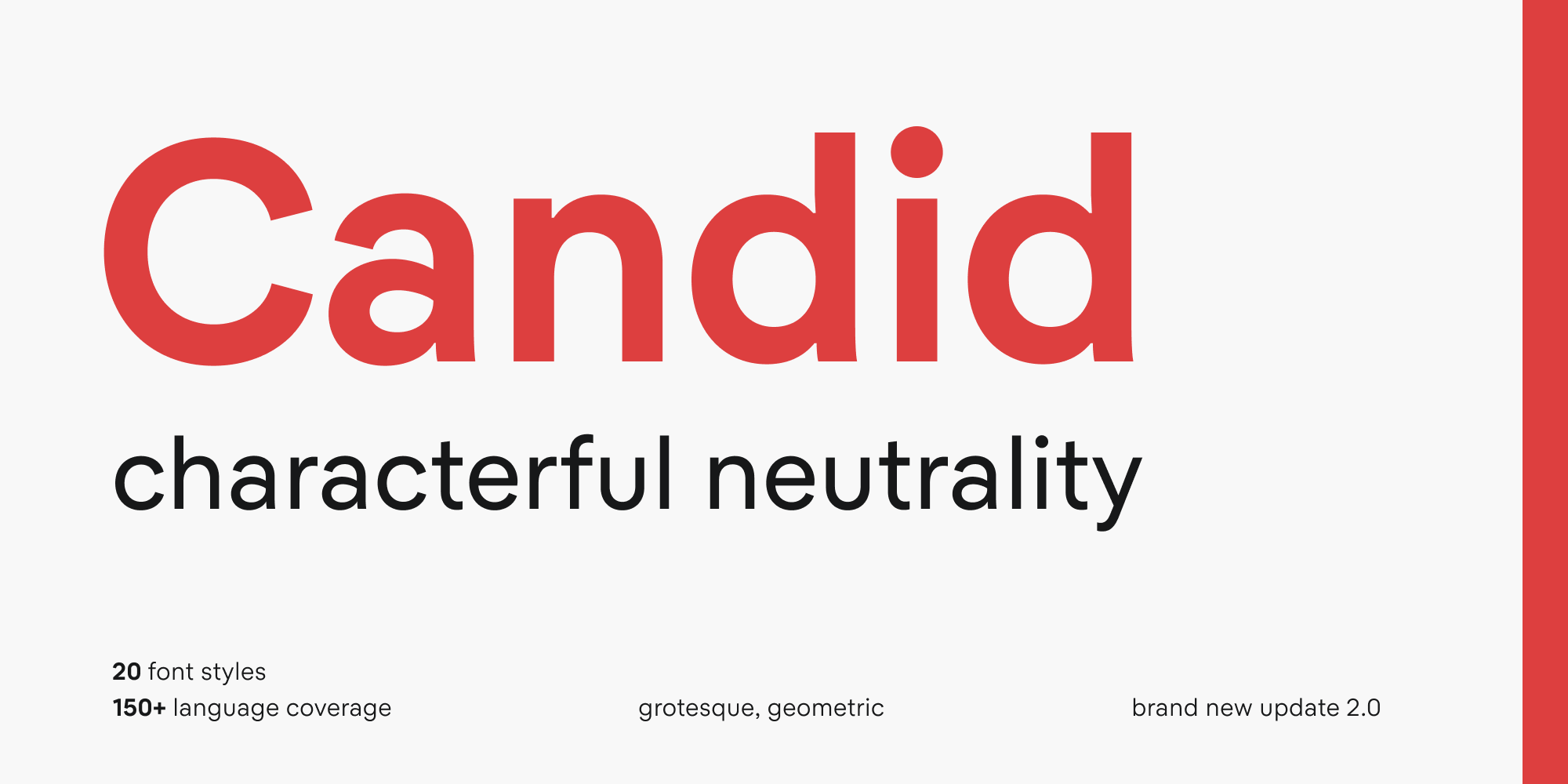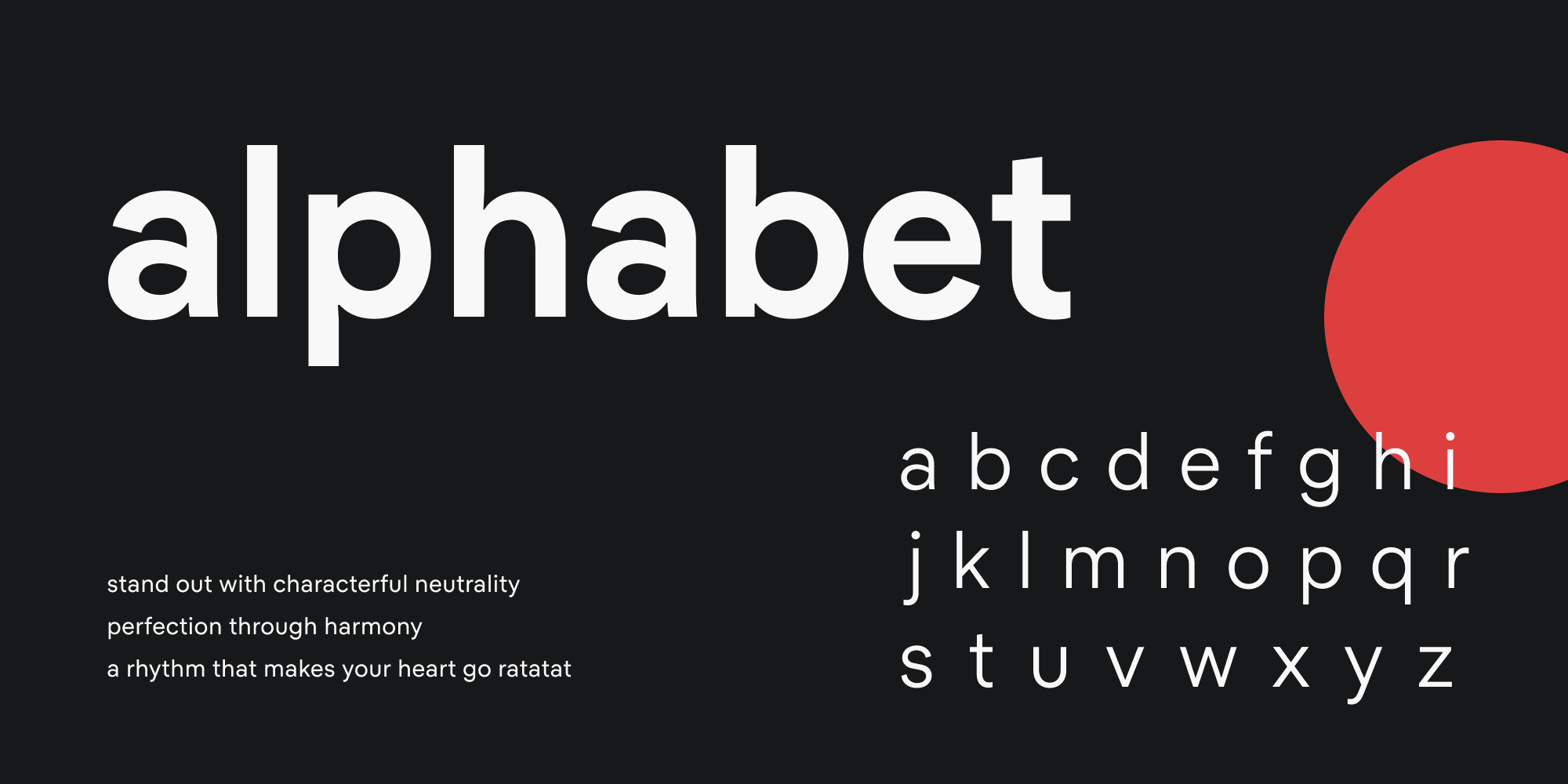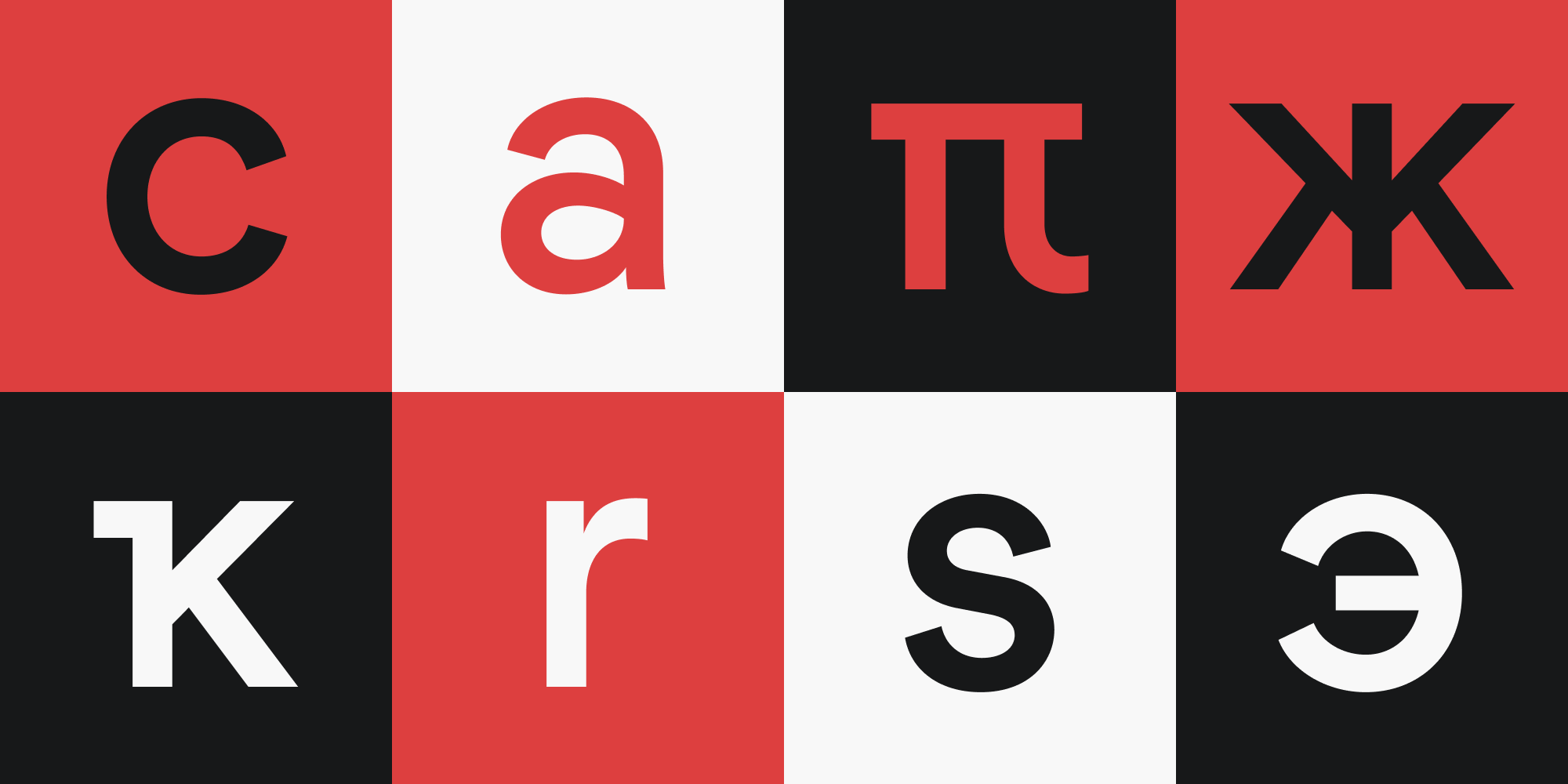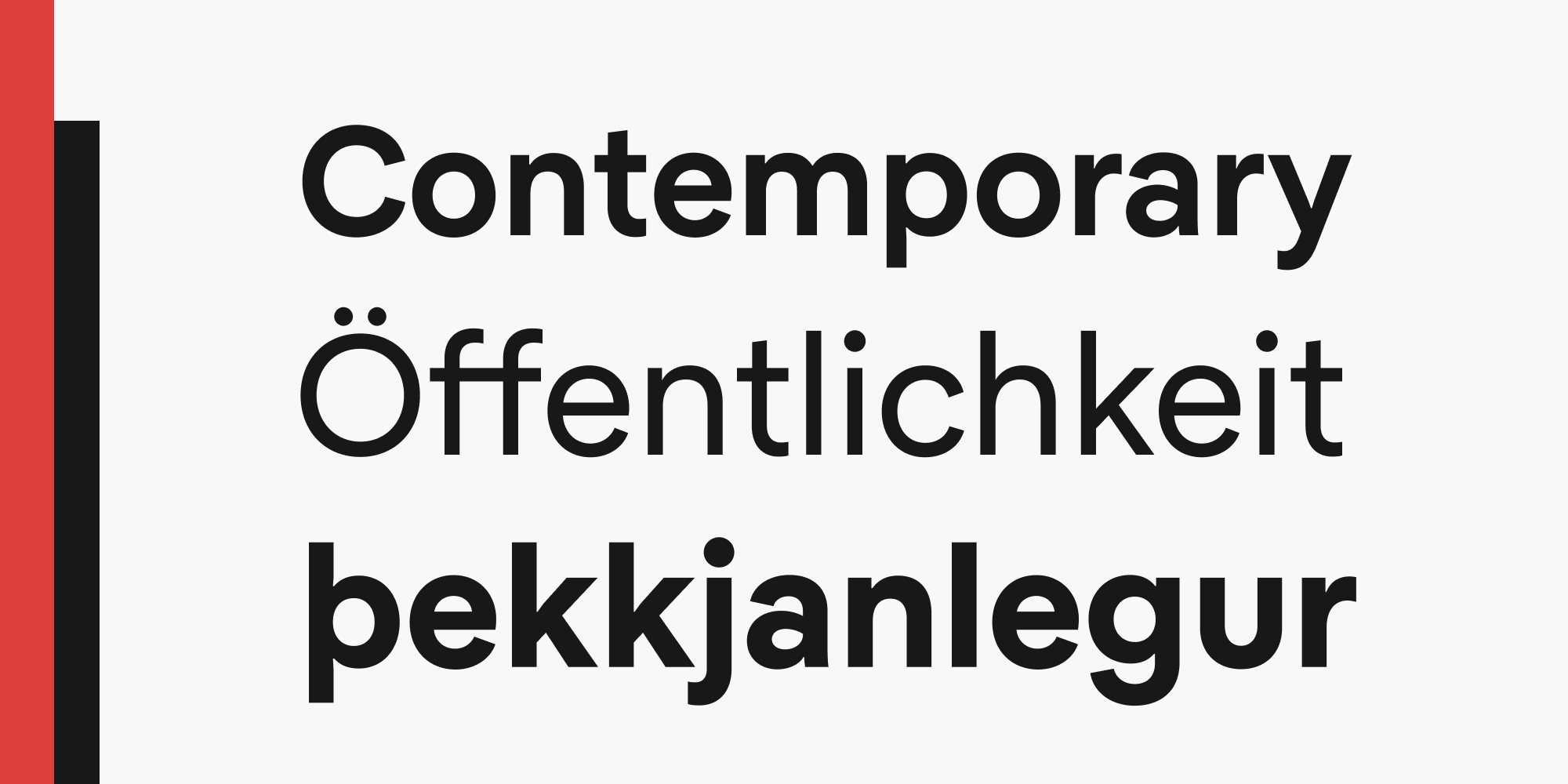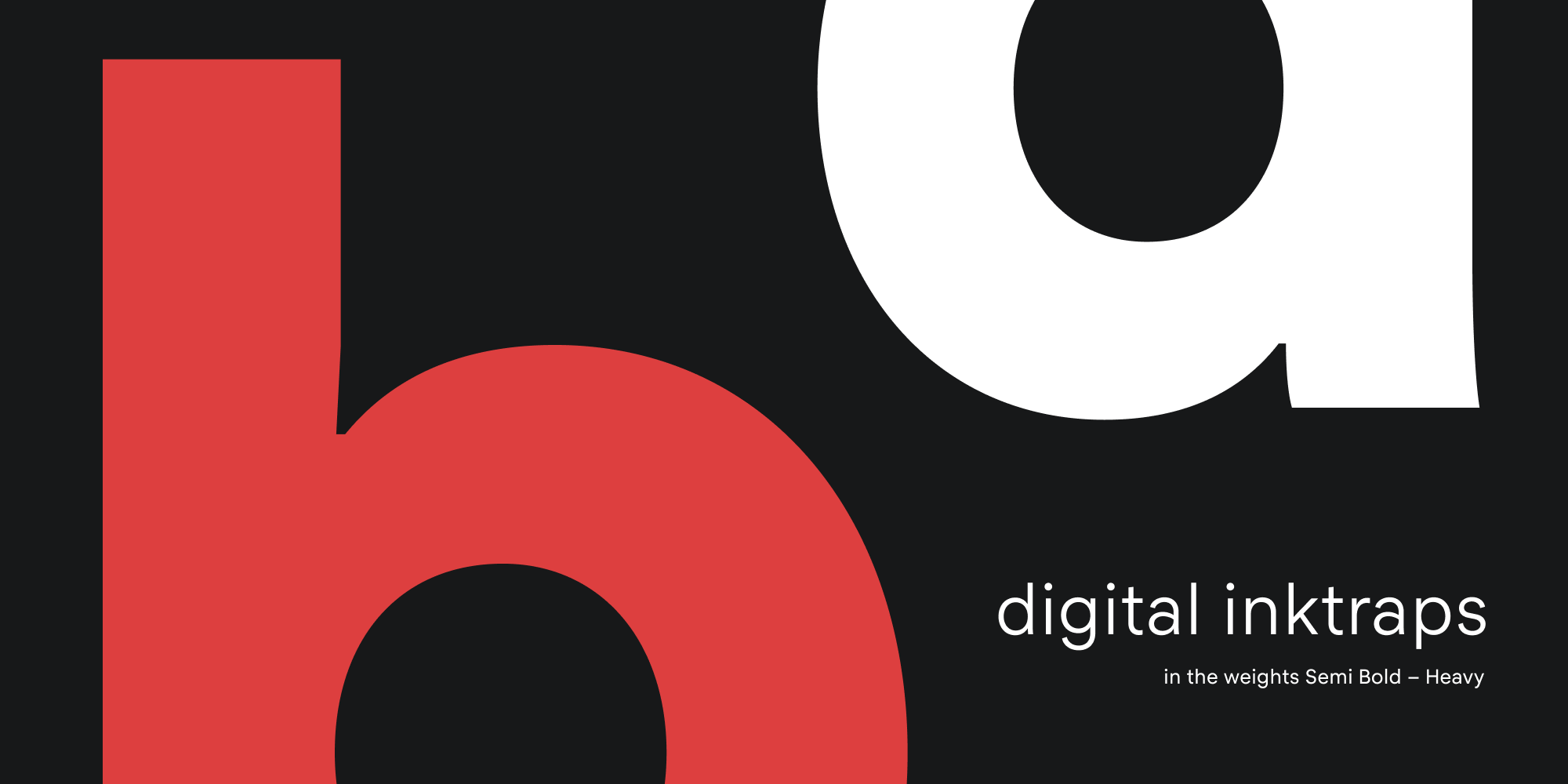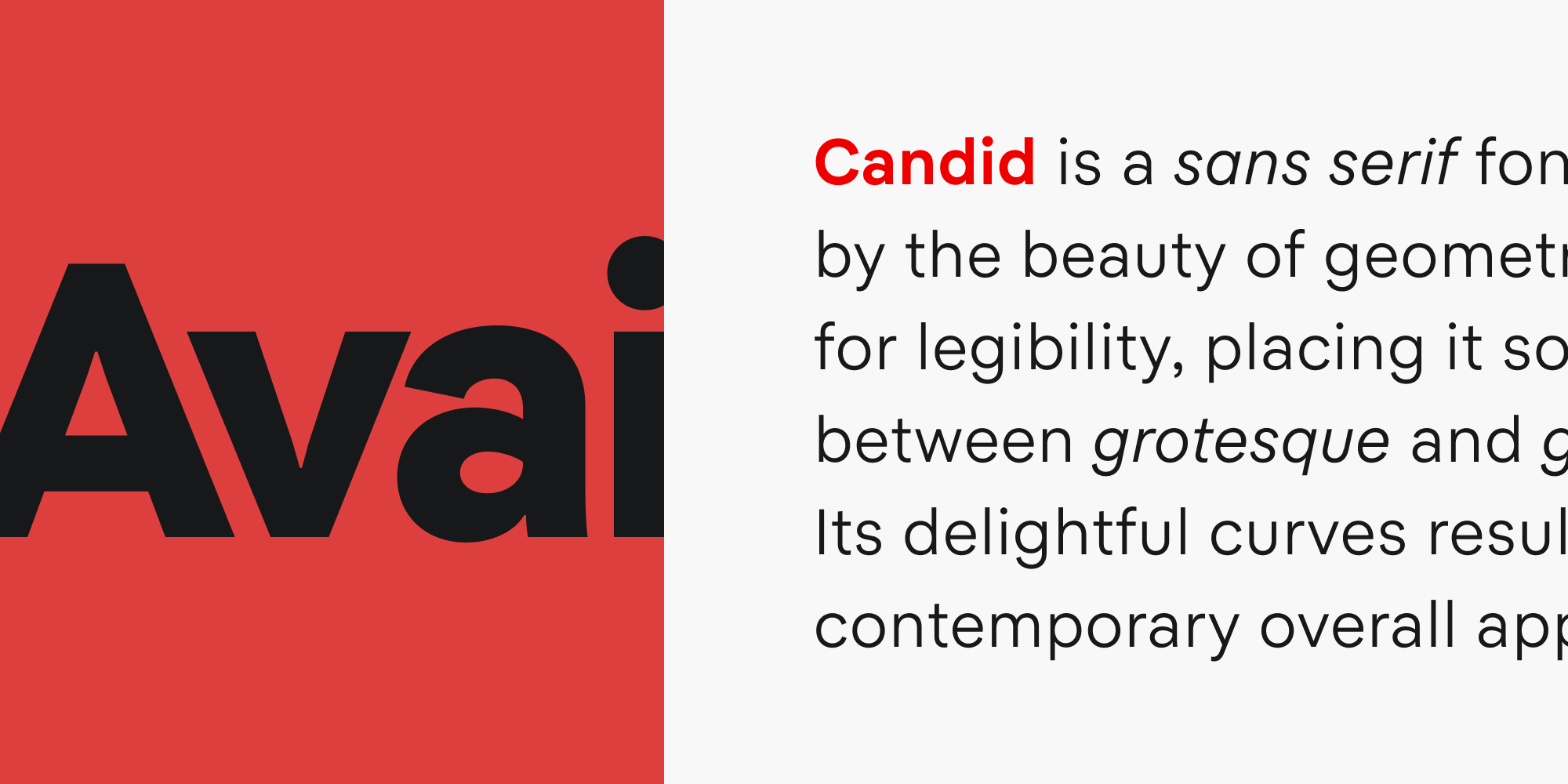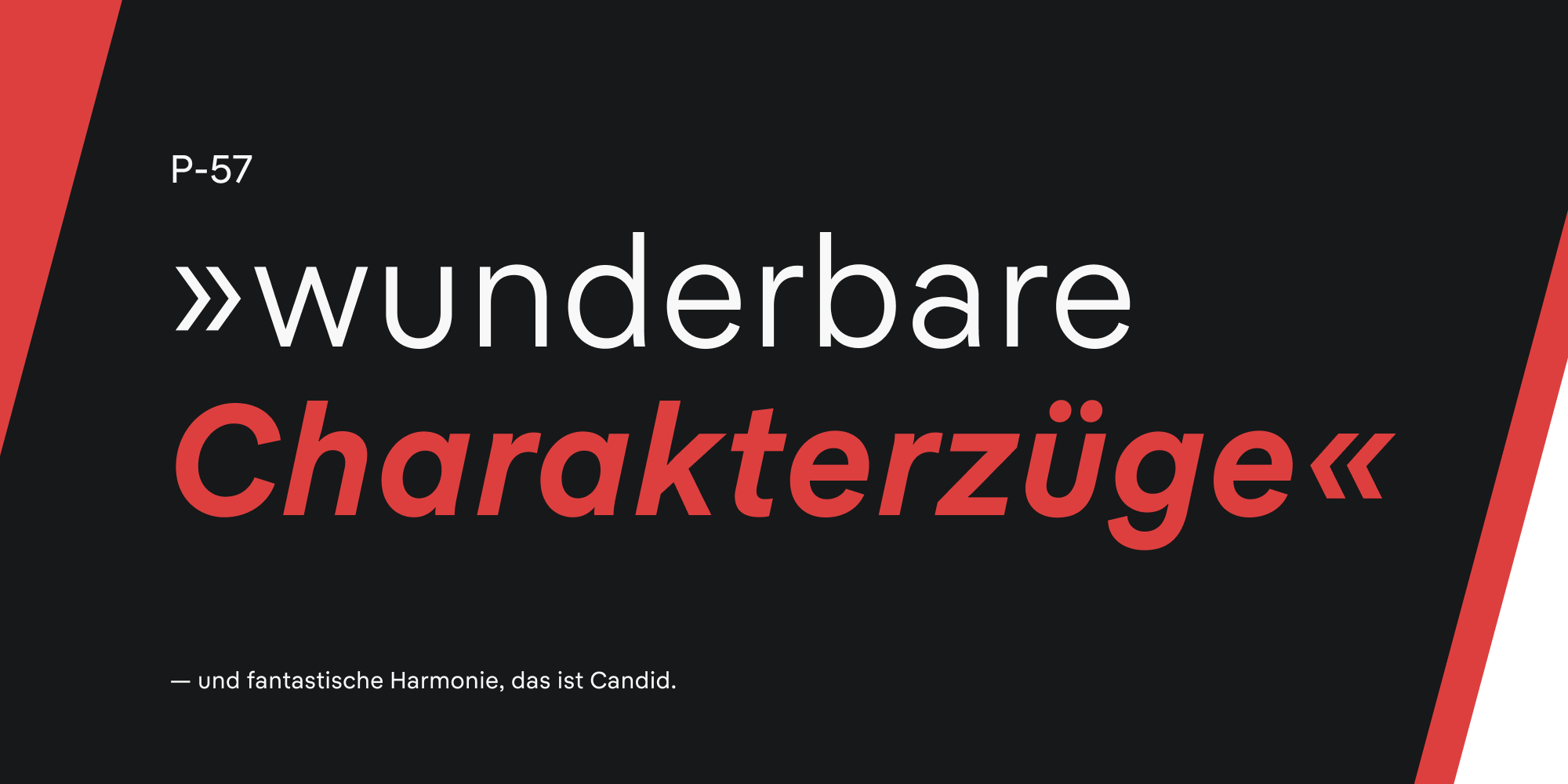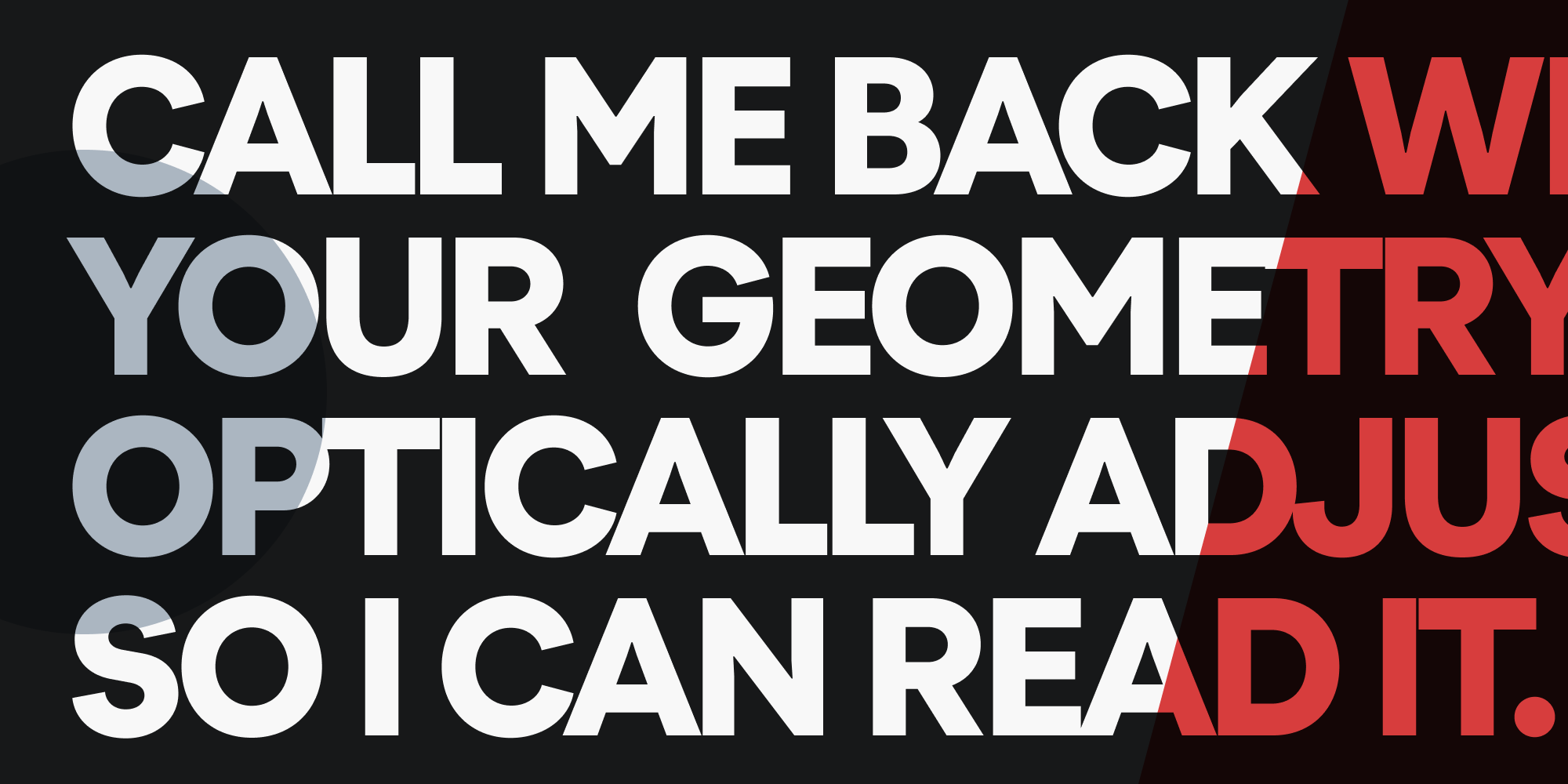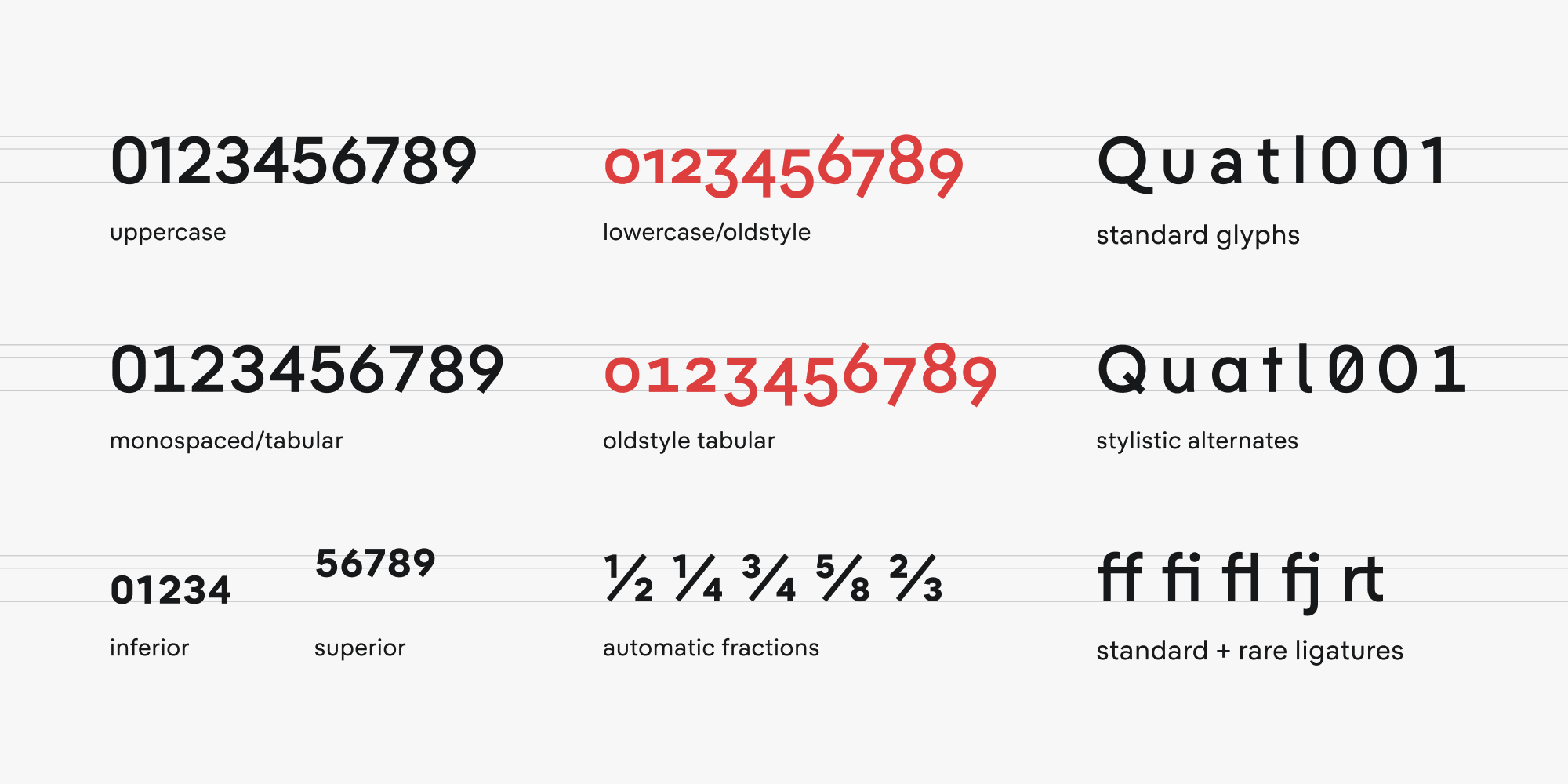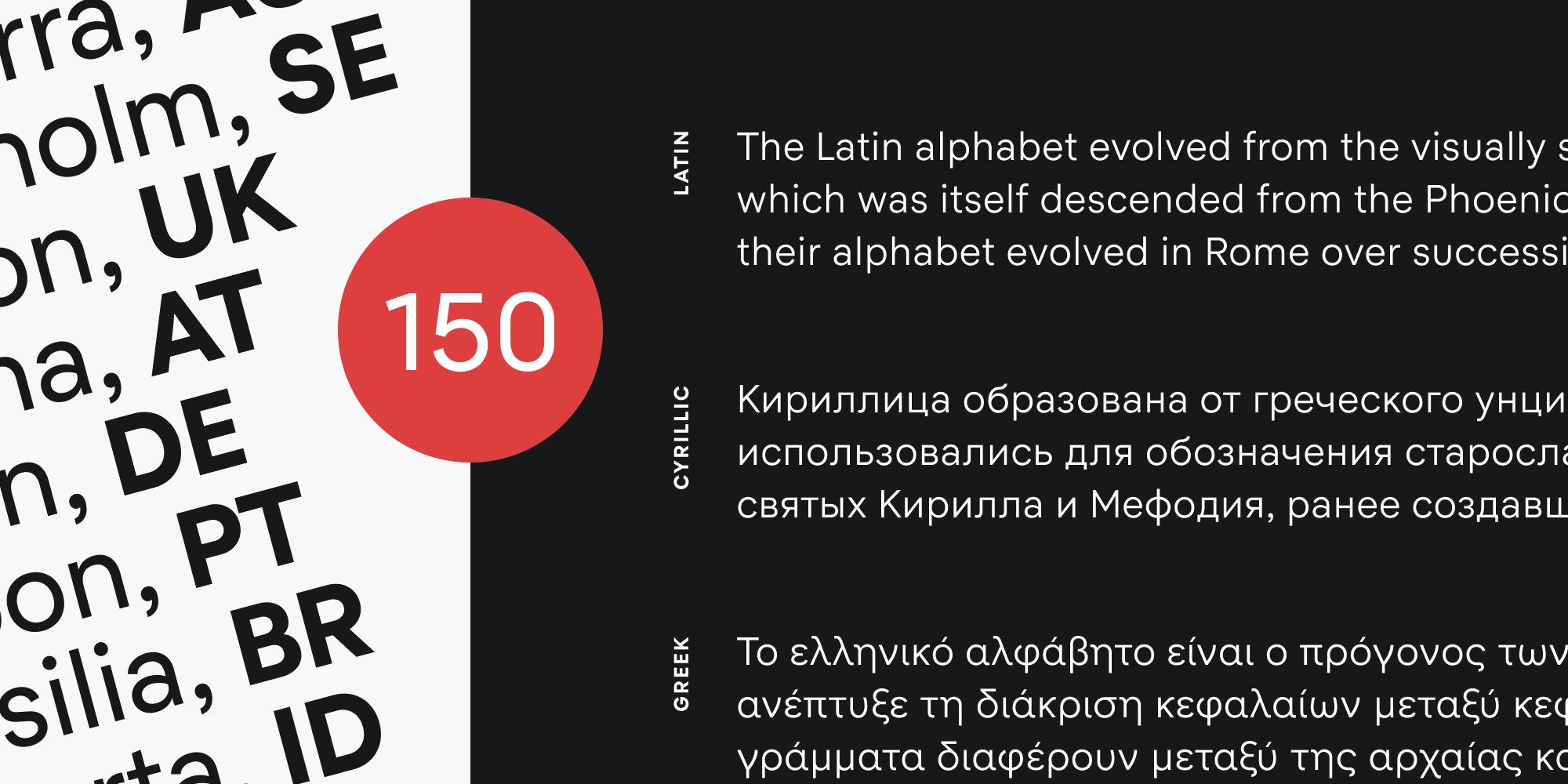
Candid
Candid is a sans serif font family inspired by the beauty of geometry, yet optimized for legibility, placing it somewhere between grotesque and geometric. Its delightful curves and seamless round shapes result in a modern contemporary look while technical details ensure professional accuracy for each of the individual characters and a coherent look for the overall appearance. Its tall x-height makes it particularly useful for body texts and any modern media from print to digital. The main idea behind Candid was to create a neutral, yet friendly typeface that has a modern geometric feel but is space-efficient and easy to read at the same time, making it perfect for digital interfaces.
The typeface comes with powerful OpenType features that will satisfy even the most demanding of designers. To mention a few of them: old-style figures, tabular figures, fractions, arrows, ligatures, case-sensitive forms… Candid provides you with all the necessary characters for Basic Latin, Western European, Central European, South-Eastern European, Vietnamese, Pinyin, Basic Cyrillic, Bulgarian Cursive, Serbian and Macedonian, Ukrainian, Adobe Extended Cyrillic + Extended, and all 71 basic characters of the Greek language.
The development of the typeface started in 2019 and concluded in the summer of 2021.